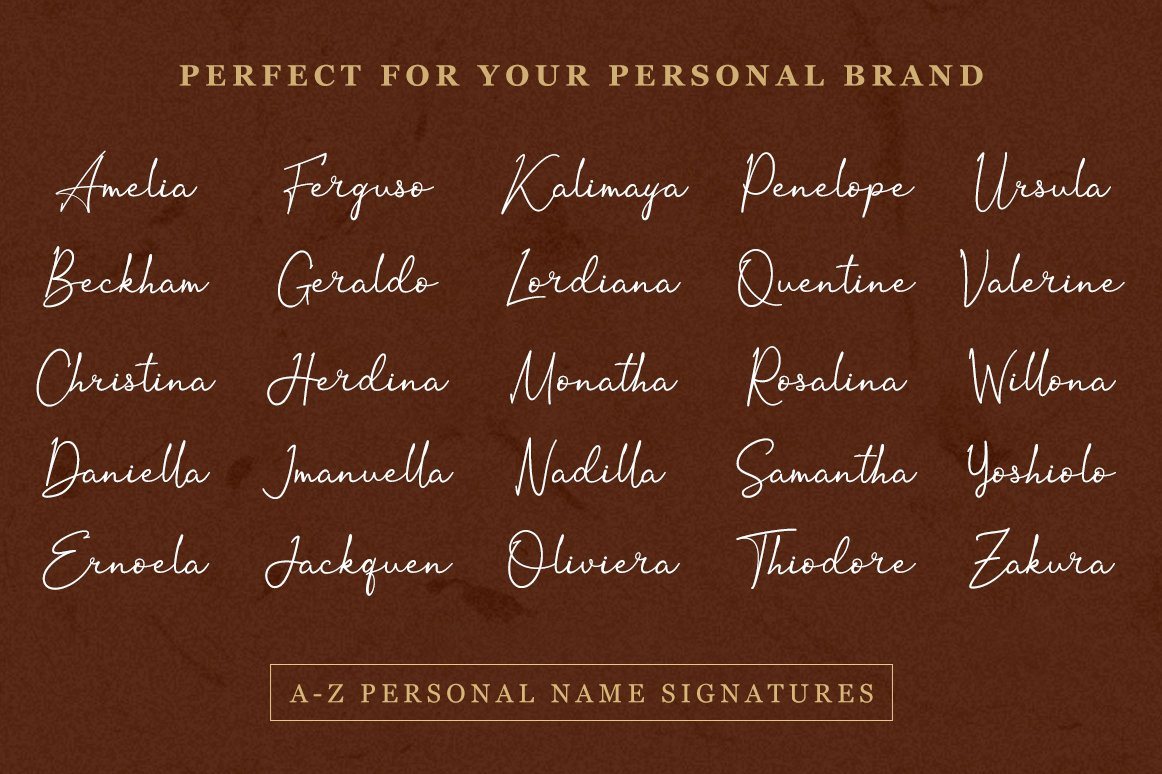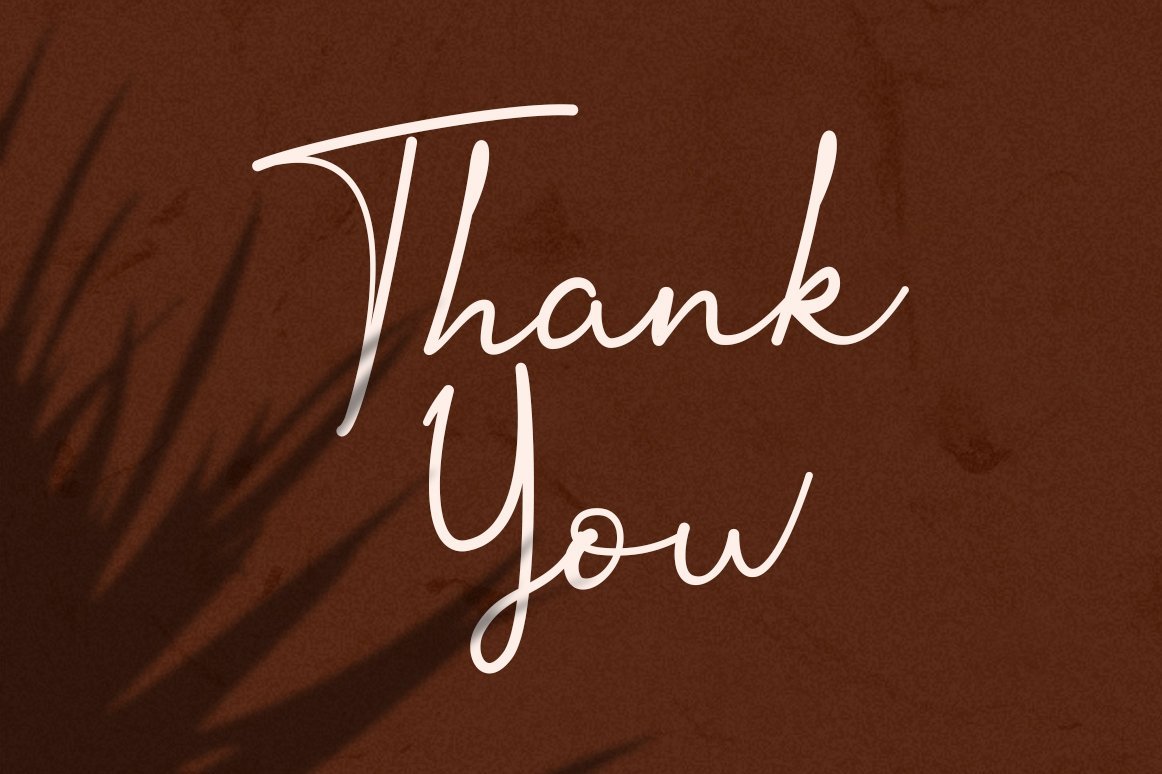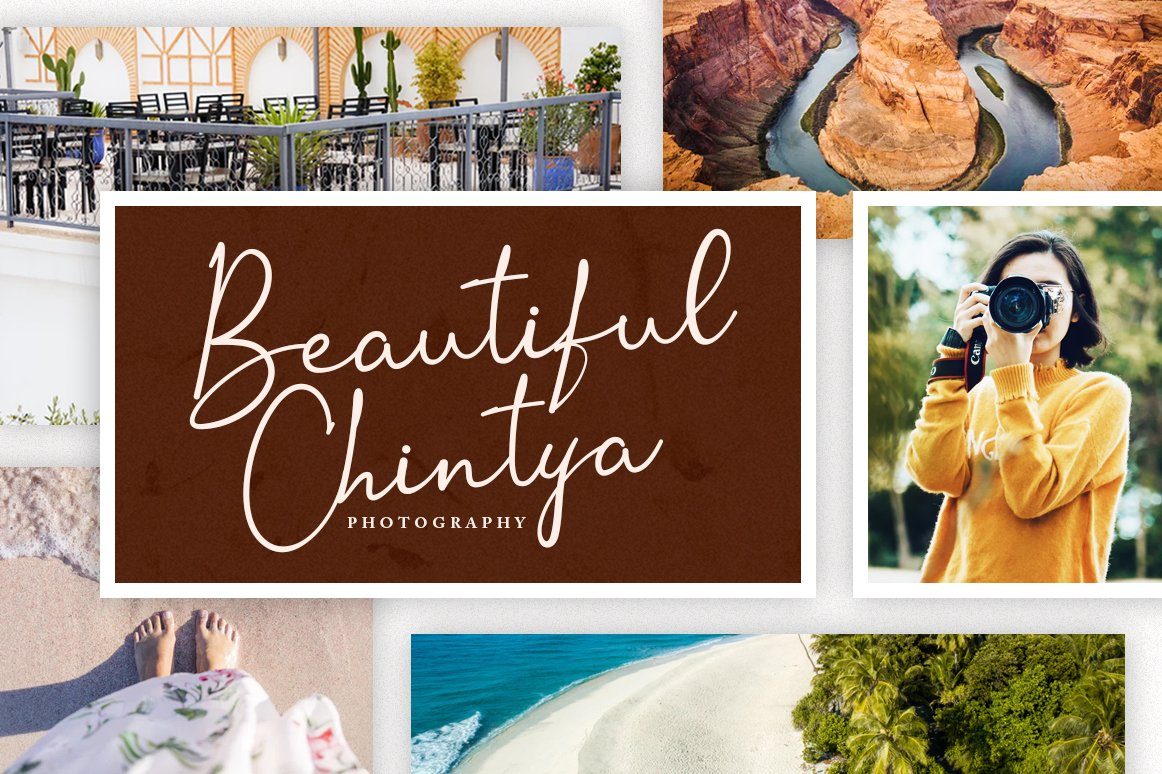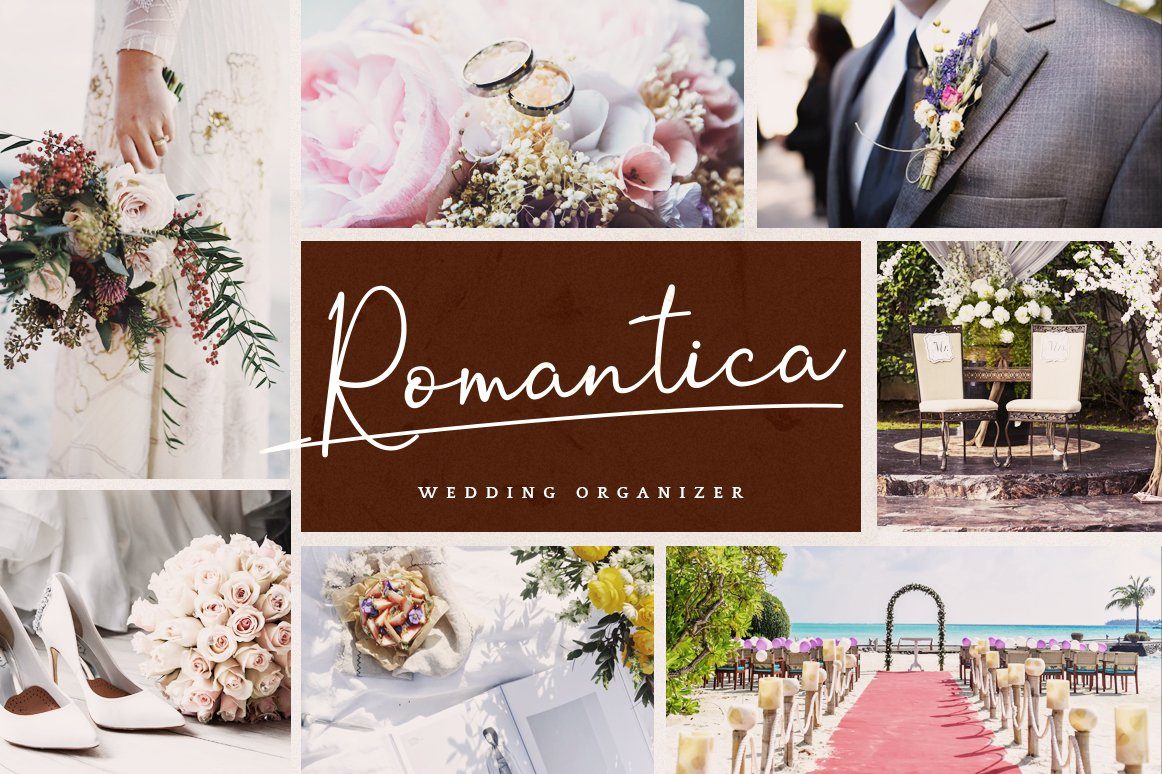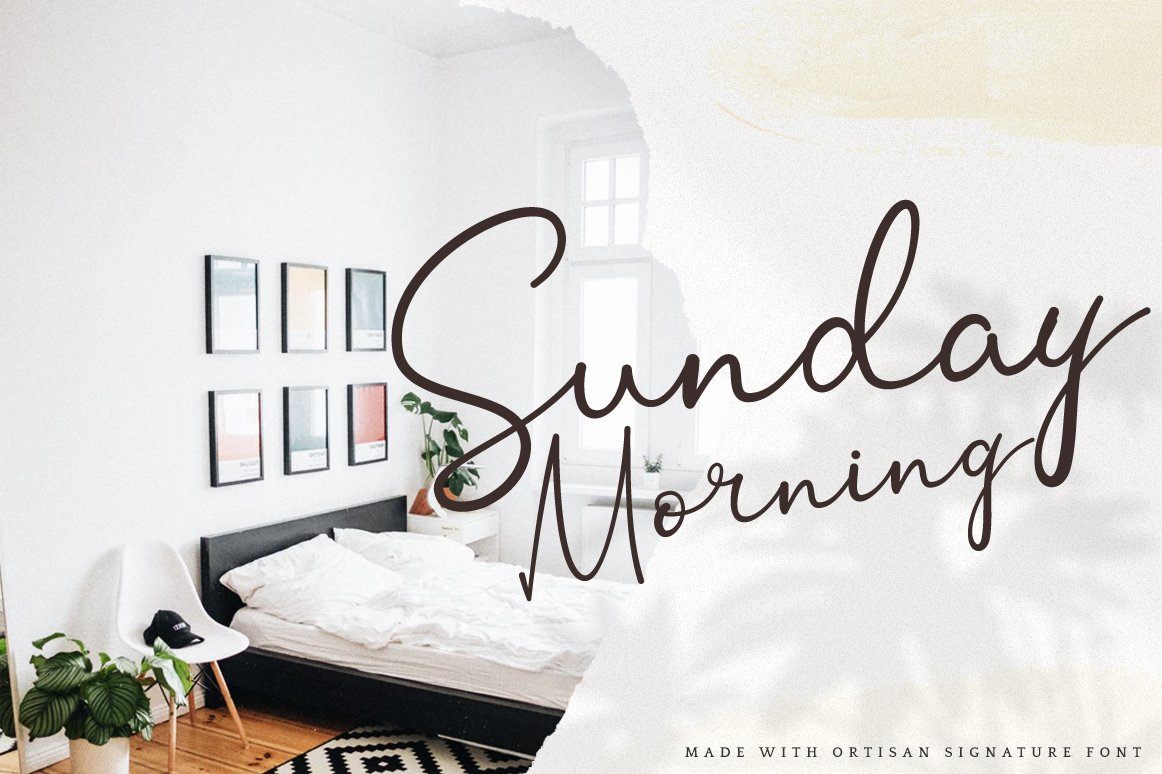
About Ortisan Signature
Introducing the new ‘Ortisan Signature’ script font – a handwritten signature script with a natural & stylish flow. This collection of scripts is perfect for personal branding. The font is the great choice for the watermark on photography, signature or signature logo design, quotes, album cover, business card, and many other design projects. Ortisan Signature is here to elevate your work to the highest level. We keep this font looks elegant, classy, readable, stylish, catchy and easy to use. With built-in Opentype features, this script comes to life as if you are writing it yourself. What you get: OrtisanSignature.ttf and OrtisanSignature.otf includes capital and lowercase letters, and Ligatures Numbers + punctuation Foreign language support I highly recommend using a program that supports OpenType features and Glyphs panels such as Adobe Illustrator, Adobe Photoshop CC, Adobe InDesign, or CorelDraw, so you can see and access all Glyph variations. Ortisan Signature is encoded with Unicode PUA, which allows full access to all additional characters without having special design software. Mac users can use Font Book, and Windows users can use Character Map to view and copy one of the extra characters to paste into your favorite text editor/application. We hope you enjoy the font. Thank You.